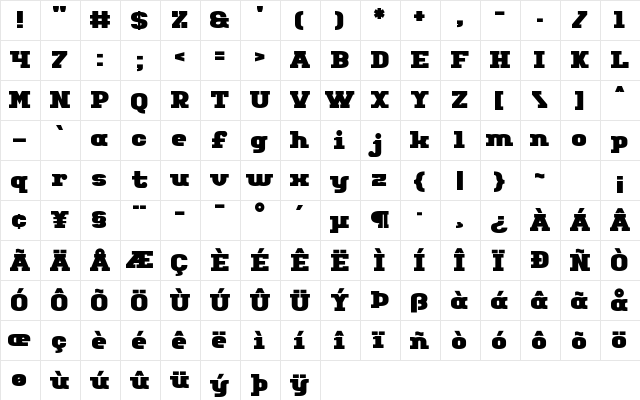
Virtu Regular
| Designer | Allison JJ |
Design Context for Virtu Typeface
Virtu is a composed and adaptable typeface that performs quietly and consistently across a wide range of design contexts.